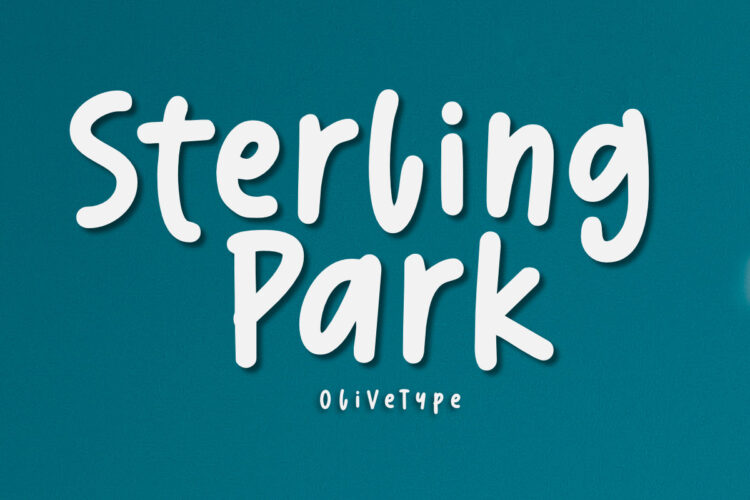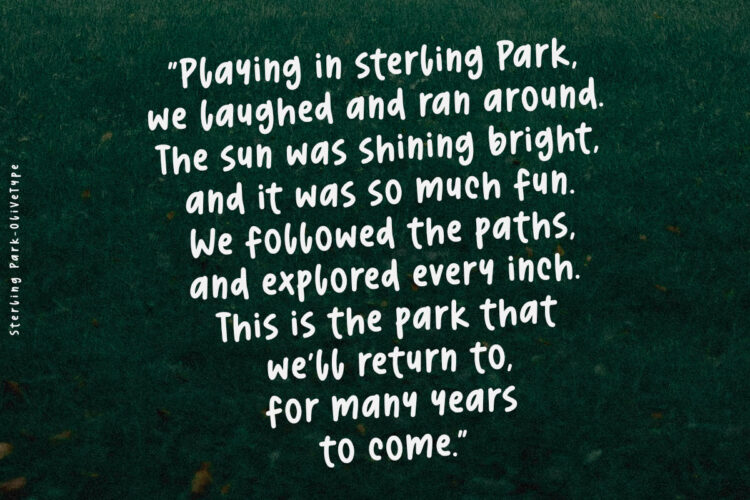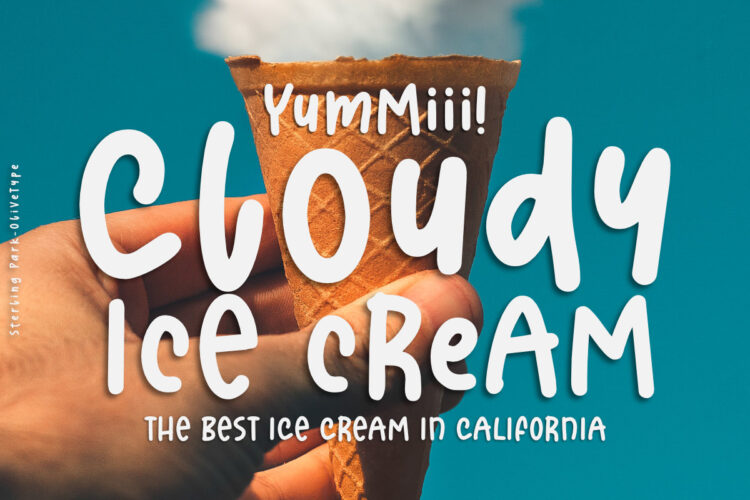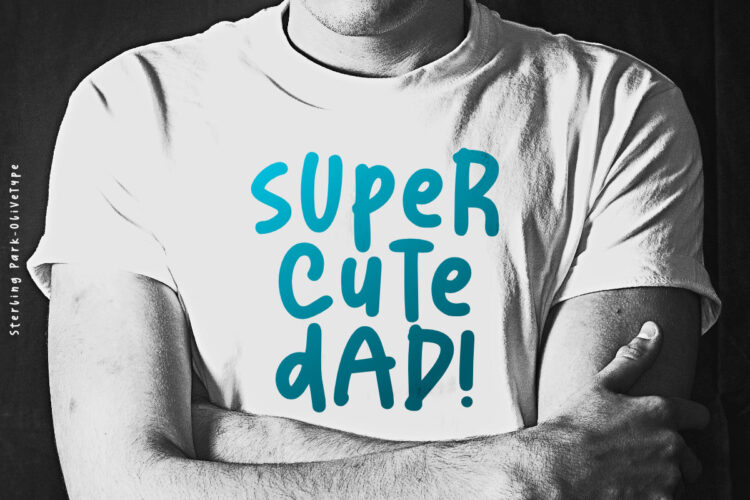
Meet Sterling Park, this font is perfect for adding a little love and warmth to your writing–in a way that feels authentic and personal. Whether you’re writing love notes or cards or designing a tshirt, this hand-drawn font will add a friendly and authentic touch to your creations.